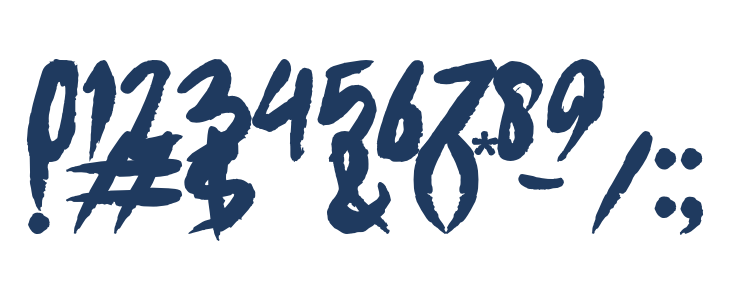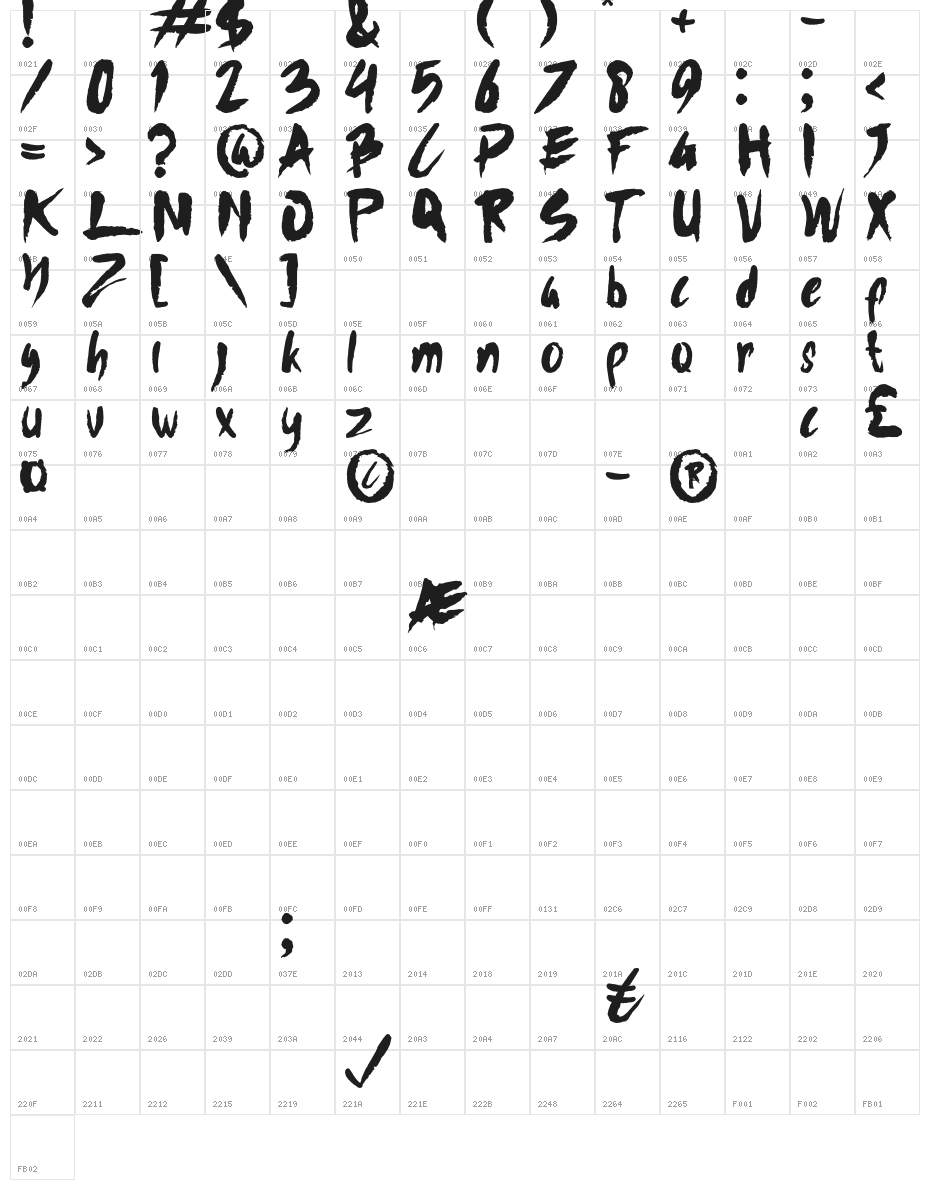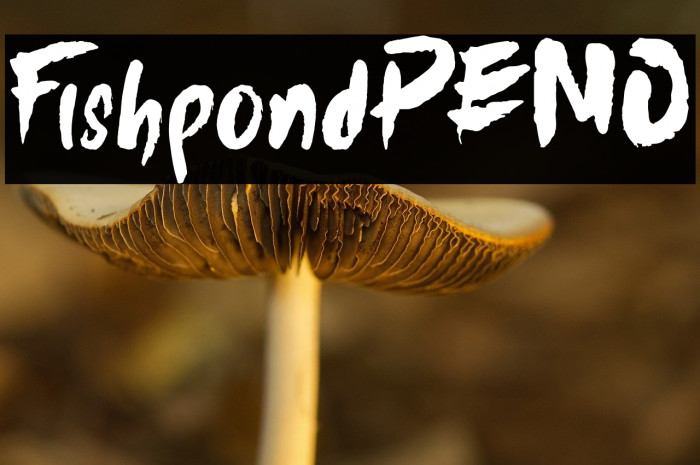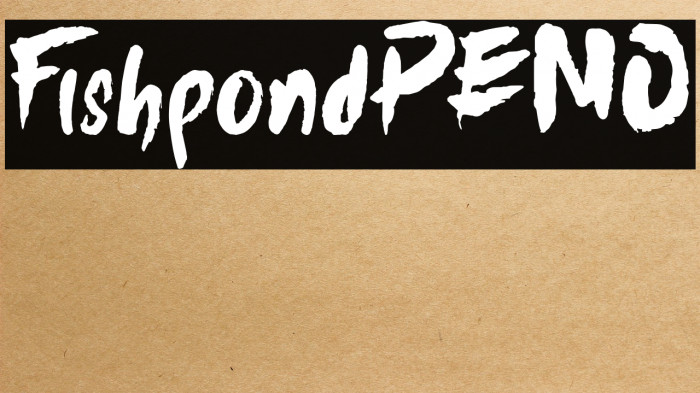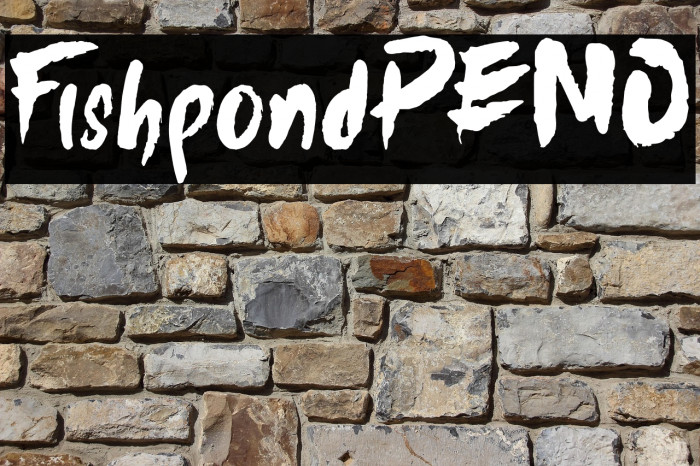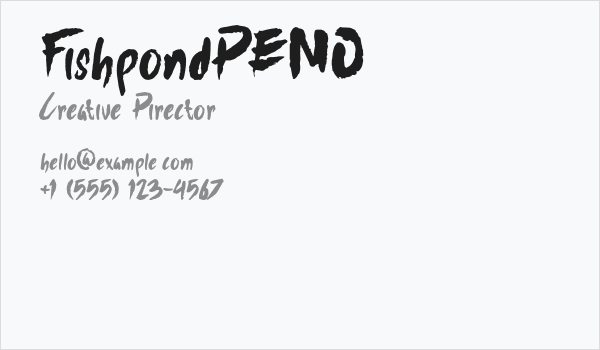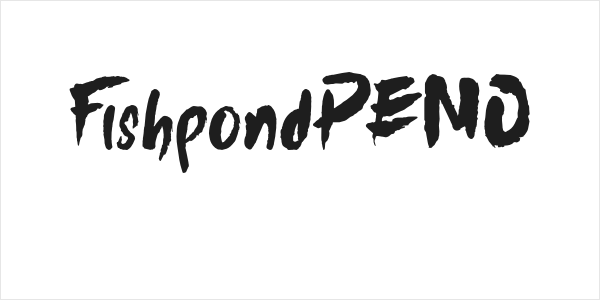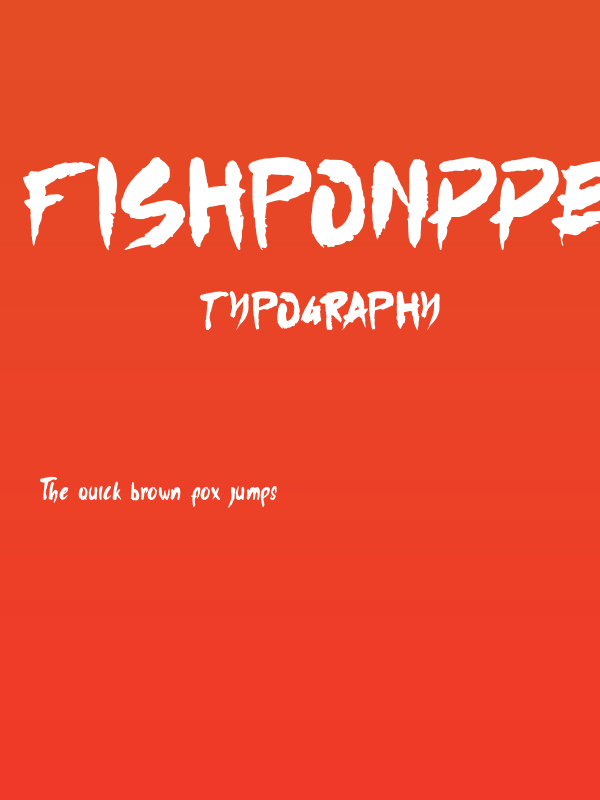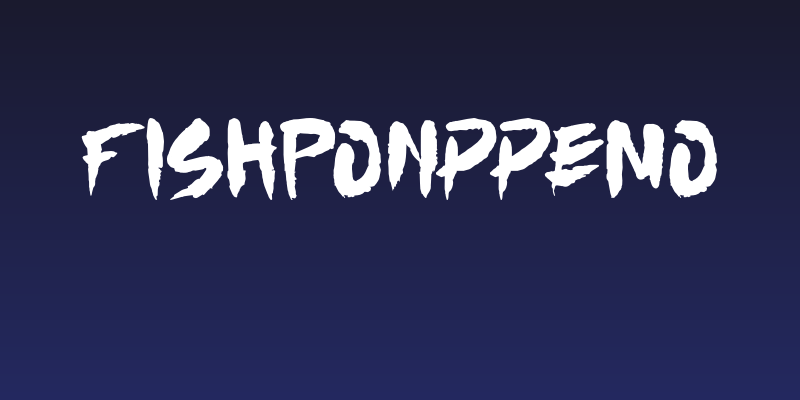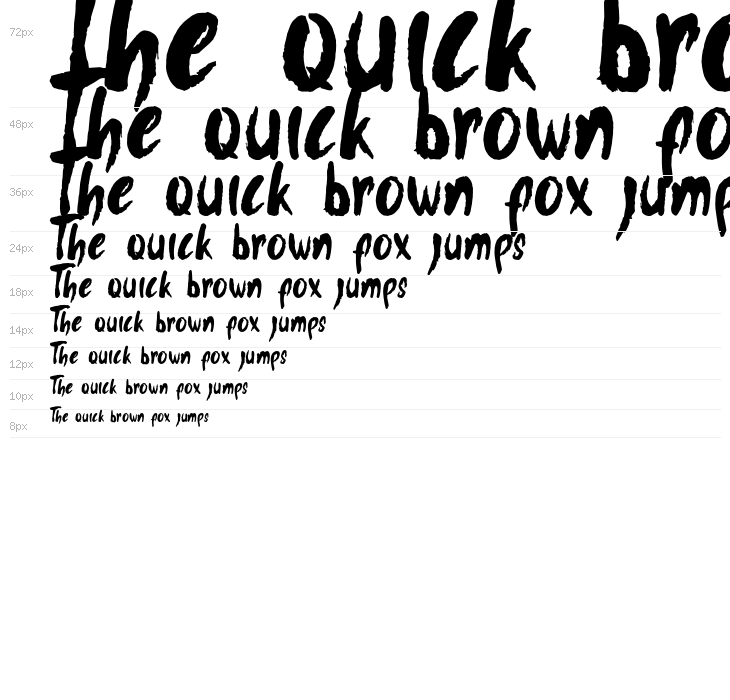
FishpondDEMO Font
FishpondDEMO Description
This font features a bold, brush-like style with a dynamic and energetic appearance. The characters are crafted with a rough, hand-painted effect, giving them a raw and expressive quality. The uppercase and lowercase letters maintain a consistent style, with thick strokes and irregular edges that add to the font's artistic flair. The numerals and special characters follow the same design principles, ensuring a cohesive look across all elements. This font's unique style makes it stand out, offering a sense of movement and creativity.
| Proposed Projects | Ideal for creative projects such as posters, album covers, branding, and artistic merchandise. |